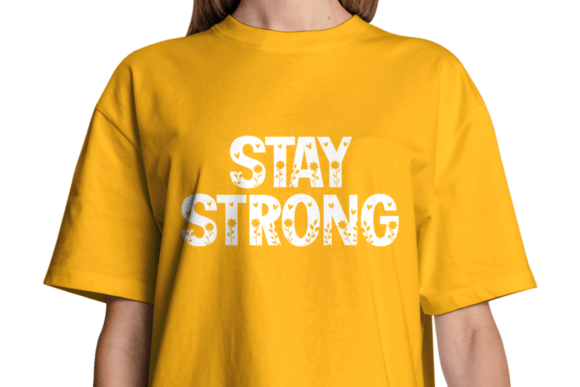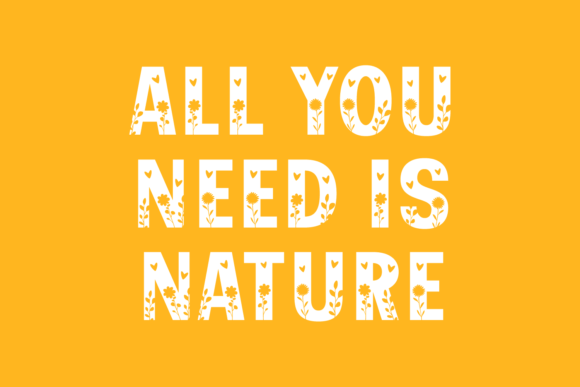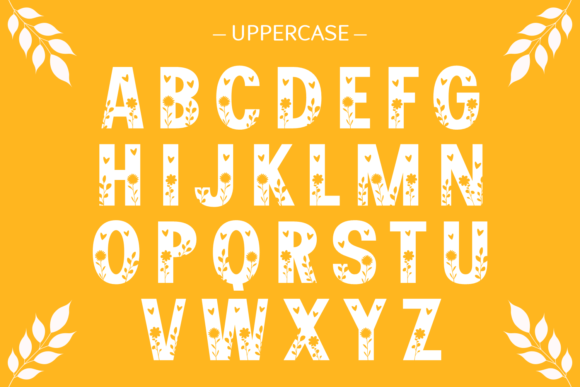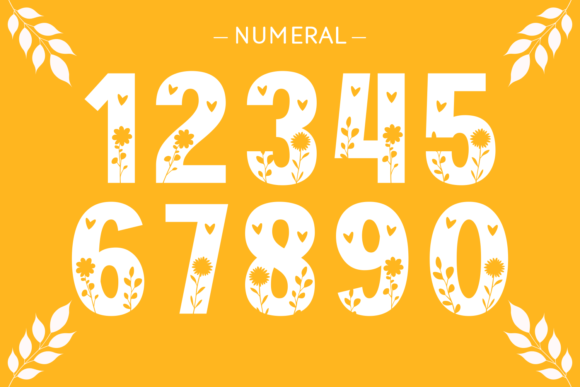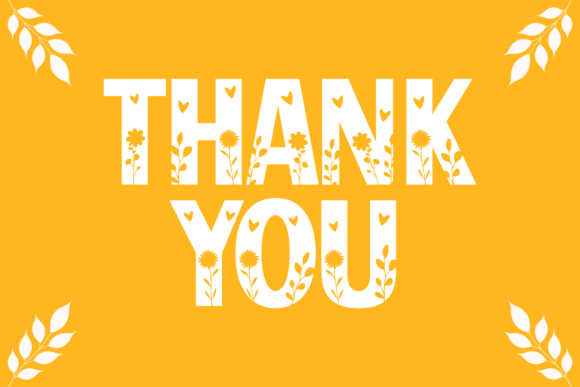
Introduction to Marly Font
As a designer, there’s nothing quite like the thrill of discovering a new high-quality design resource that elevates your creative project to the next level. And for those who love a touch of whimsy and romance in their designs, the Marly Font is sure to be a game-changer. I still remember the moment I stumbled upon this stunning font, and my heart skipped a beat as I scrolled through its intricate floral and heart motifs. It was love at first sight!
Whether you’re working on a wedding invitation, a garden party poster, or a feminine branding project, the Marly Font is a free download that’s sure to bring a touch of magic to your design. With its transparent background and delicate details, this font is a versatile design tool that can add a level of sophistication and charm to any typographic composition. As a designer, it’s invaluable to have access to high-quality resources like the Marly Font that can help you create truly enchanting designs.
Key Features of Marly Font
- High-quality design resource suitable for creative projects and professional applications.
- Comes in multiple weights and styles, providing versatility for a range of creative projects.
- Designed to be highly legible at various resolutions and sizes, making it ideal for digital and print applications.
- Supports a wide range of languages, ensuring its usability in diverse creative projects and design contexts.
- Includes a comprehensive character set, including uppercase and lowercase letters, numbers, and special characters.
Honest Review: Marly Font
I recently had the chance to work with the Marly Font, and I must say it’s a high-quality design resource that’s perfect for creative projects.
- ✨ Clean and modern design aesthetic
- ✨ Highly legible and versatile font
- ✨ Includes a transparent background option for seamless integration
The Marly Font is available for free download, making it an excellent choice for designers on a budget. I was impressed with the level of detail and attention to quality that went into creating this font.
One of the limitations I noticed was that the font family is relatively small, with only a few weights and styles available. This might be a concern for designers who require a more extensive range of options.
- ⚠️ Limited font family options
Overall, I’m thoroughly impressed with the Marly Font and would recommend it to designers looking for a high-quality, free download for their creative projects.
Marly Font is a high-quality design resource ideal for creative projects. With a free download available, this versatile font can elevate your designs in various applications.
Tips for Getting the Most Out of Marly Font
To maximize the potential of Marly Font, use it with a transparent background to create stunning designs with a subtle texture.
Marly Font is ideal for various creative projects, including:
- Brochure and flyer design
- Poster and graphic design
Oswald Font is a high-quality sans-serif font perfect for designers working on creative projects. It’s a great alternative to Marly Font for headings and titles due to its clean and modern design. You can download Oswald Font for free and use it for both personal and commercial projects. Its transparent background makes it easy to customize and integrate with any design resource.
When to use: Oswald Font is ideal for projects that require a clean and minimalist look, such as tech startups, fashion brands, or modern magazines. Compared to Marly Font, Oswald Font has a more geometric and industrial feel, making it a great choice for projects that need a bold and edgy look.
Montserrat Font is a modern sans-serif font designed for urban environments. It’s a great alternative to Marly Font for designers working on creative projects that require a high-quality and versatile font. You can download Montserrat Font for free and use it for both personal and commercial projects. Its transparent background makes it easy to customize and integrate with any design resource.
When to use: Montserrat Font is ideal for projects that require a modern and urban feel, such as fashion brands, tech startups, or city-based magazines. Compared to Marly Font, Montserrat Font has a more geometric and condensed feel, making it a great choice for projects that need a bold and modern look.